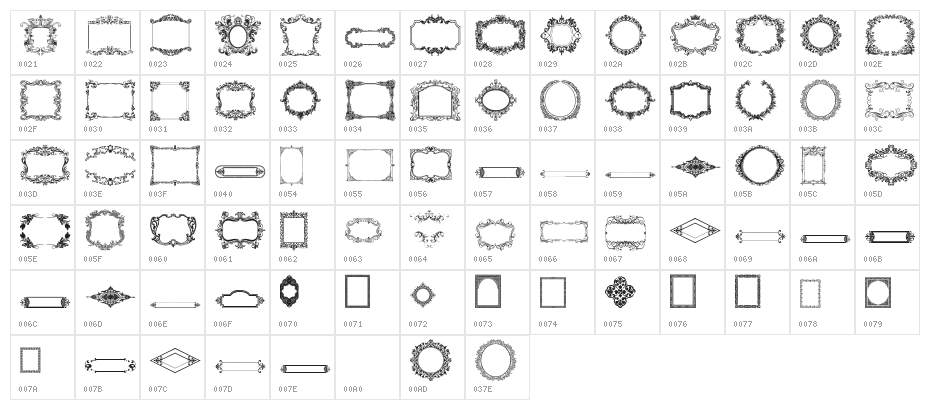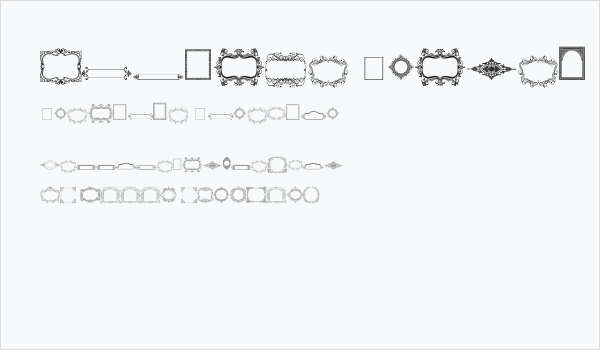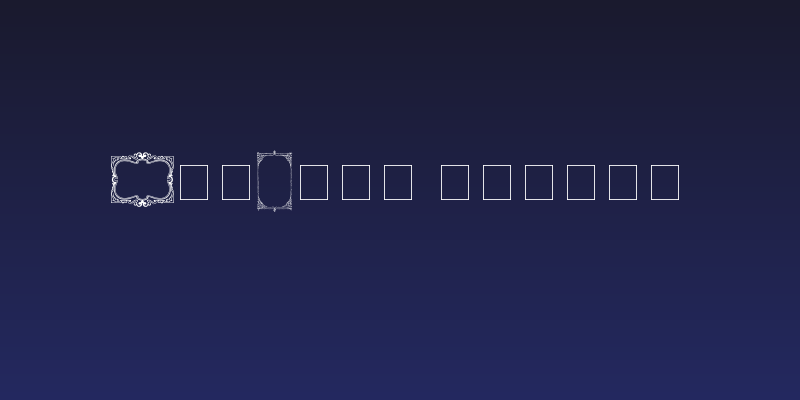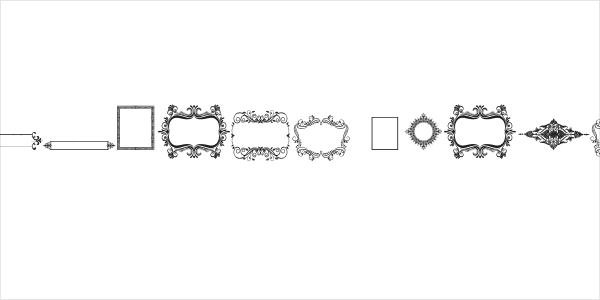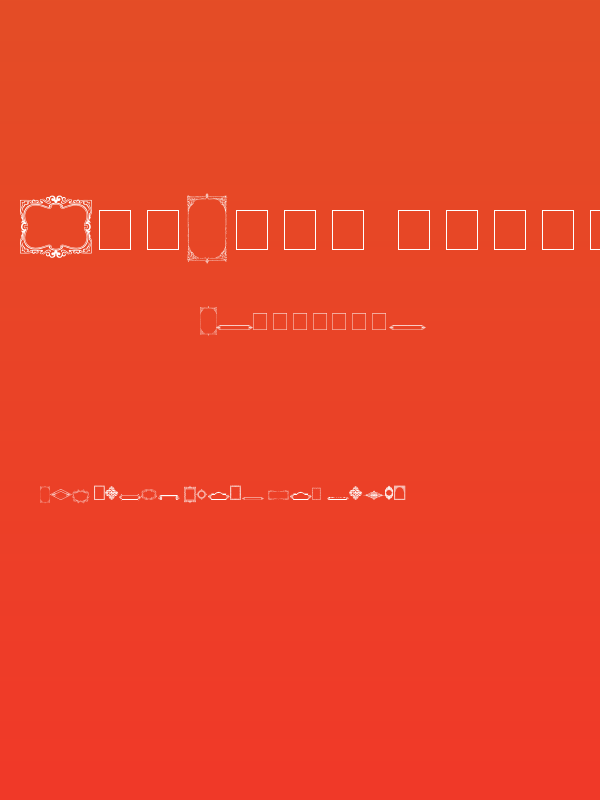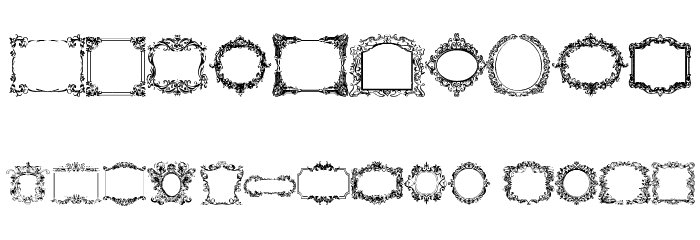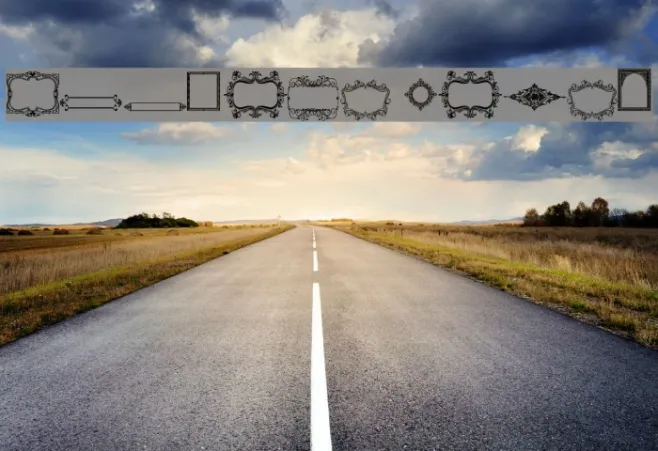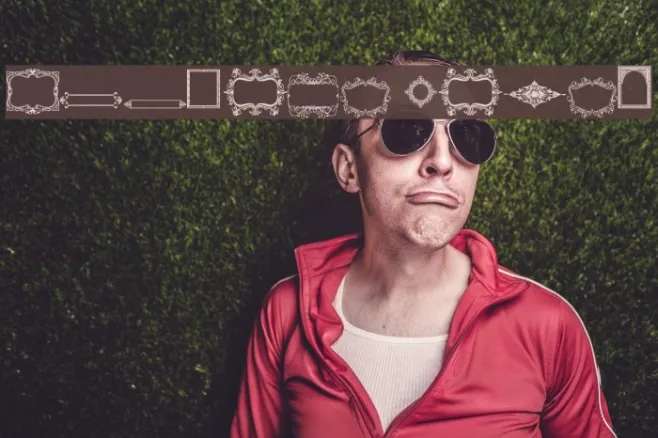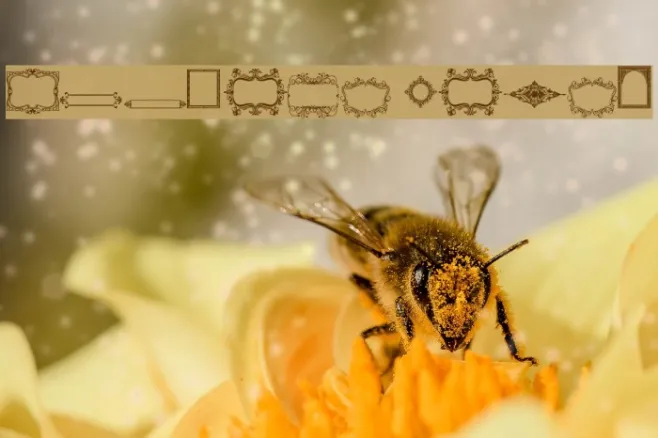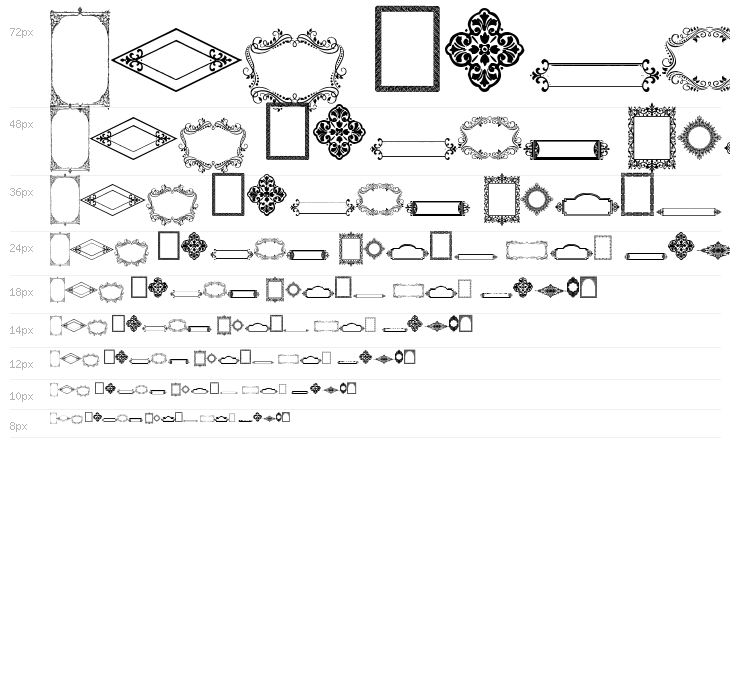
Vintage Frames Font
Vintage Frames Description
A decorative collection of ornate, vintage-style frames and borders with intricate detailing, featuring a variety of shapes including rectangles, ovals, and diamonds, as well as connecting elements and flourishes.
| Overall Style | Vintage, Decorative |
| Use Case | Borders, Frames, Decorative elements |
| Proposed Projects | Invitations, certificates, scrapbooking, decorative labels, packaging, wedding stationery, vintage-themed posters. |